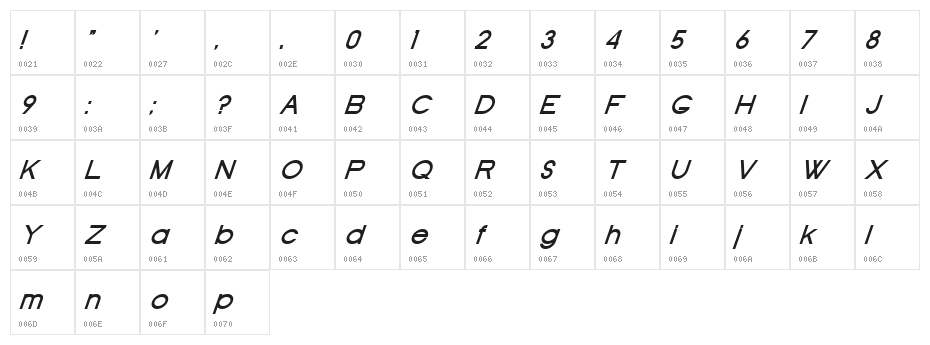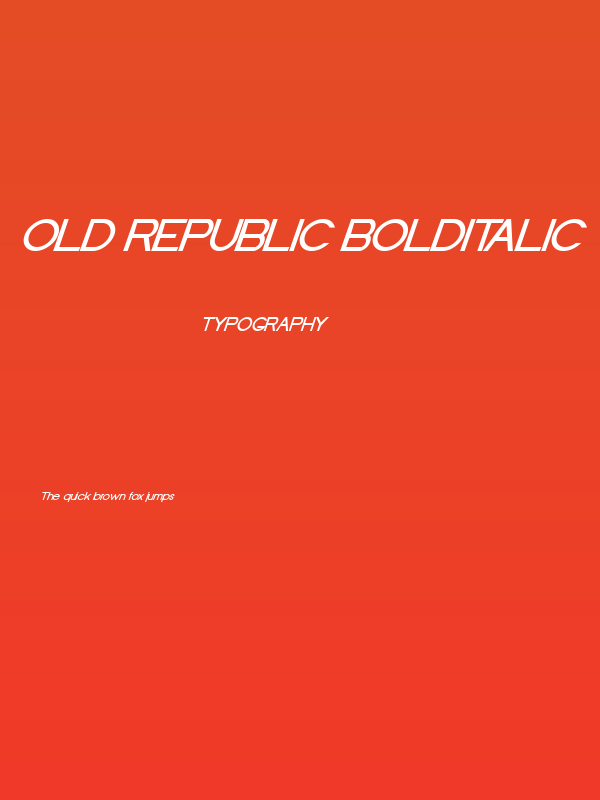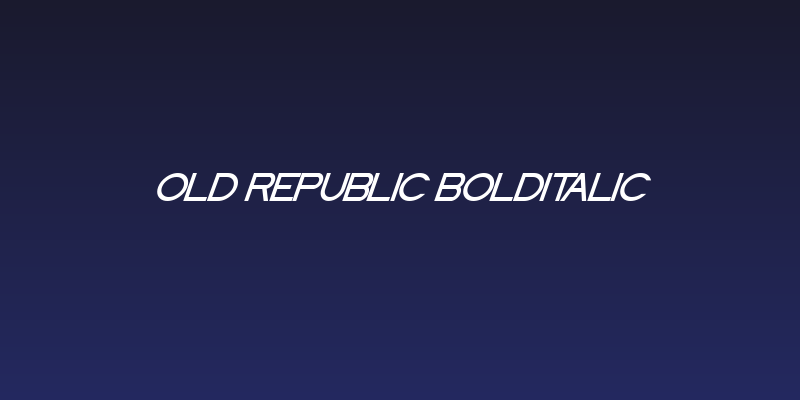
Old Republic BoldItalic Font
Old Republic BoldItalic Description
This font features a bold and italicized style with a modern, futuristic aesthetic. The characters are slanted, giving a sense of motion and dynamism. The strokes are consistent in thickness, providing a uniform appearance across all characters. The uppercase and lowercase letters maintain a cohesive design, with sharp angles and clean lines. The numerals are distinct and align well with the overall style, ensuring readability. Special characters are included, matching the bold and italicized theme, making this font versatile for various applications.
| Proposed Projects | Ideal for sci-fi themed projects, branding for tech companies, futuristic posters, and video game titles. |